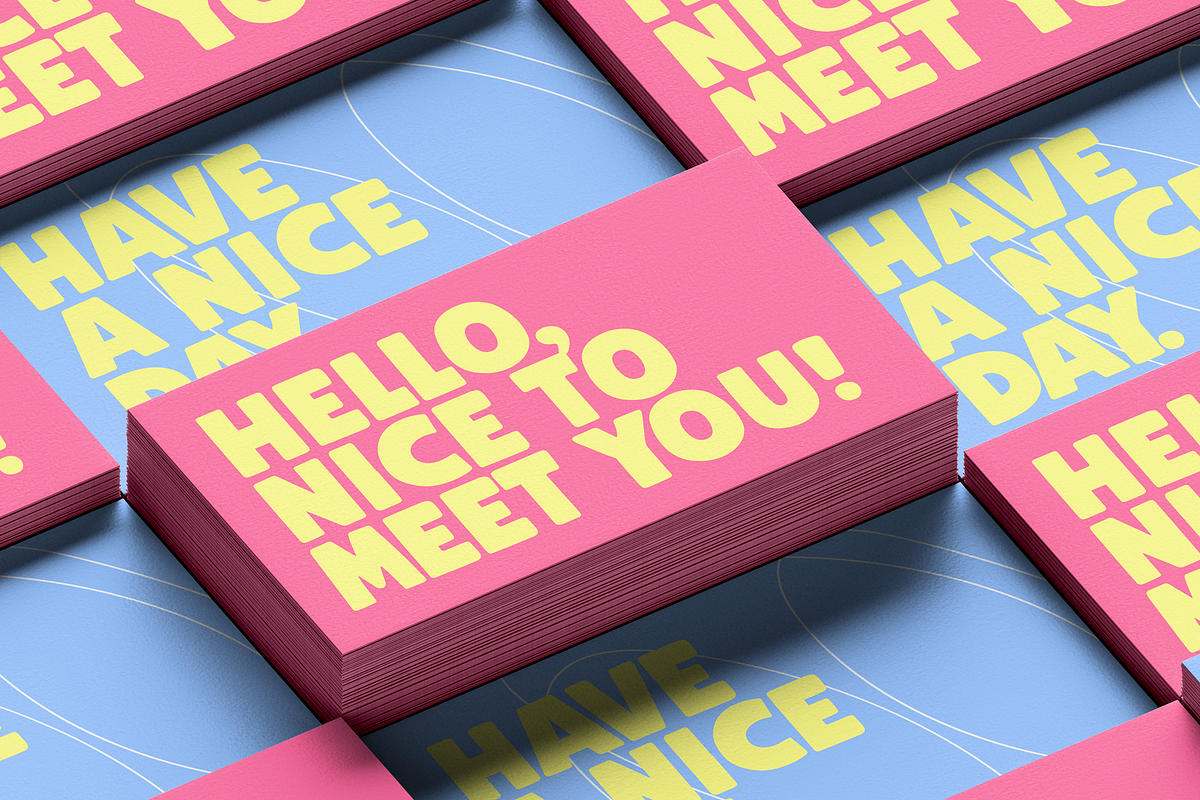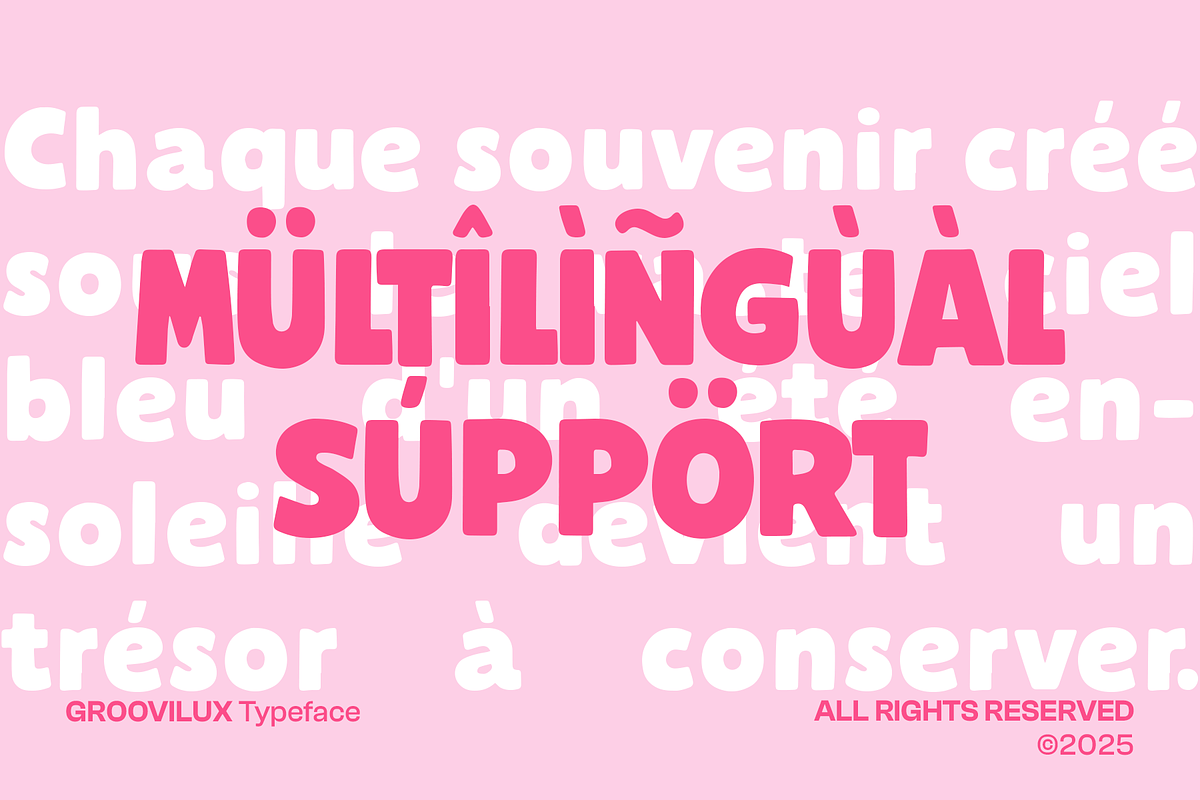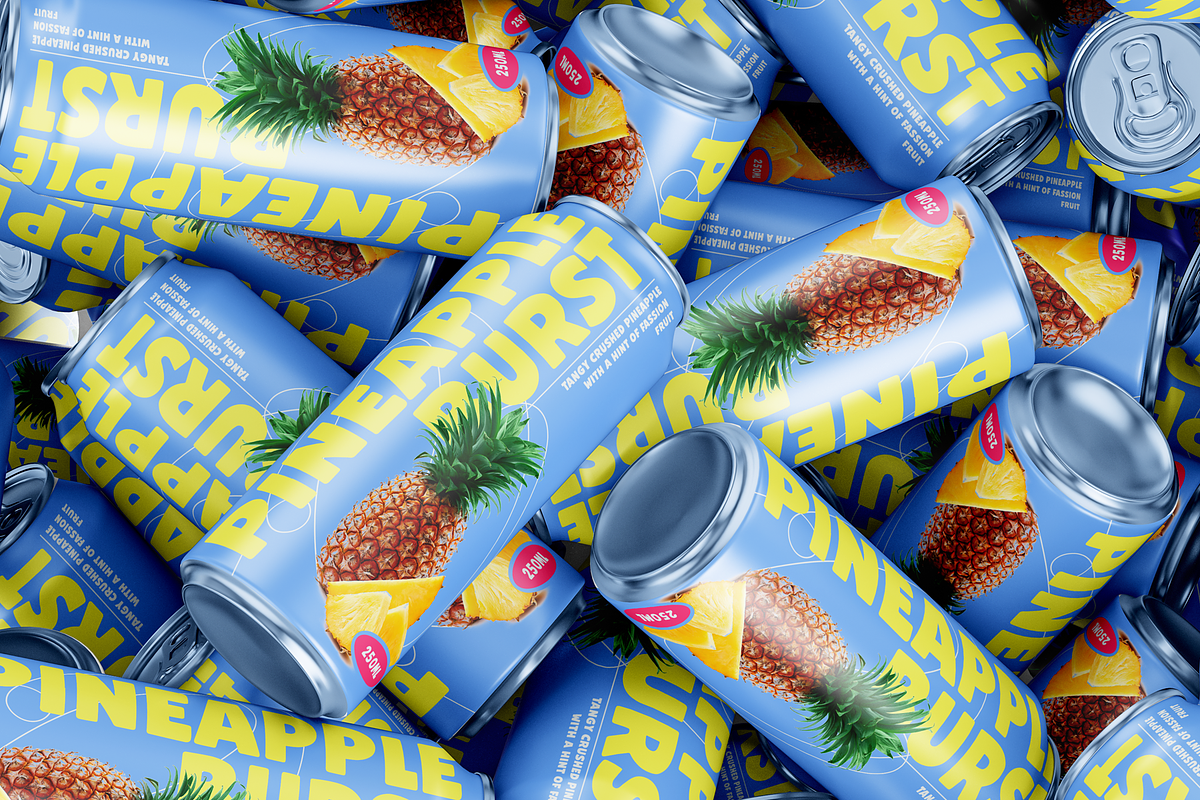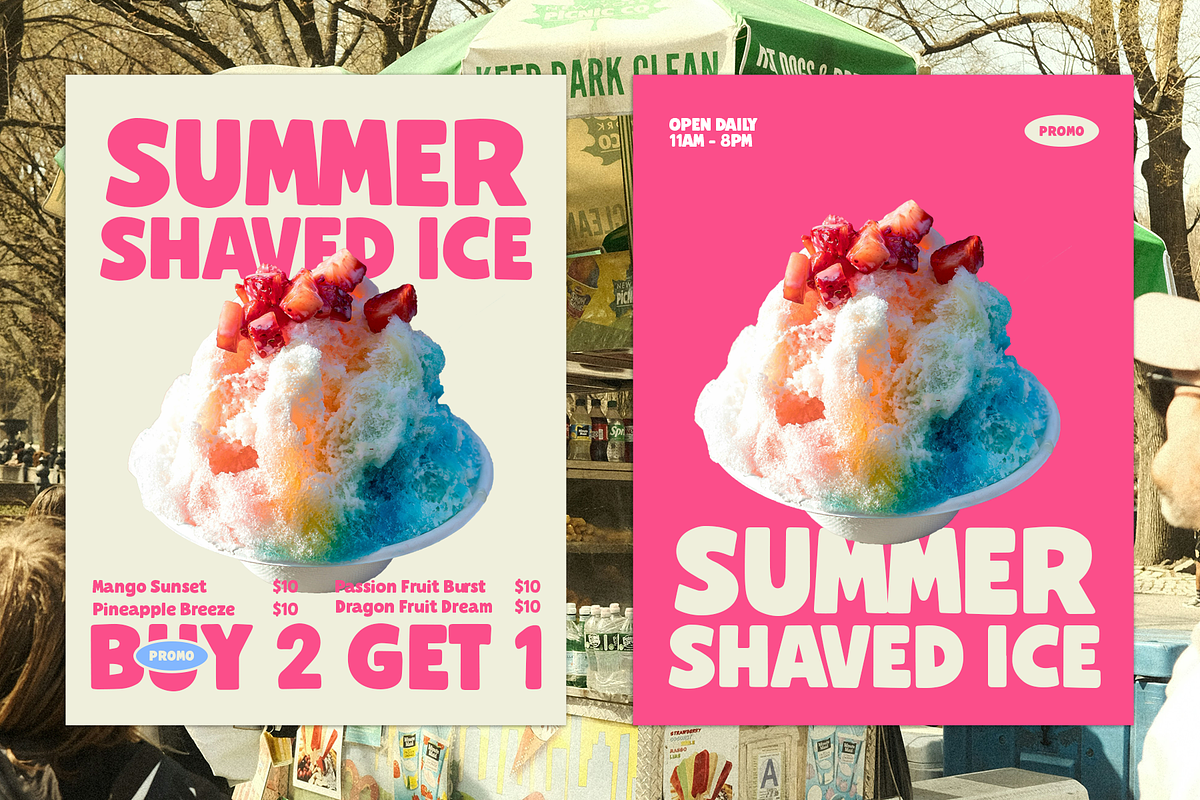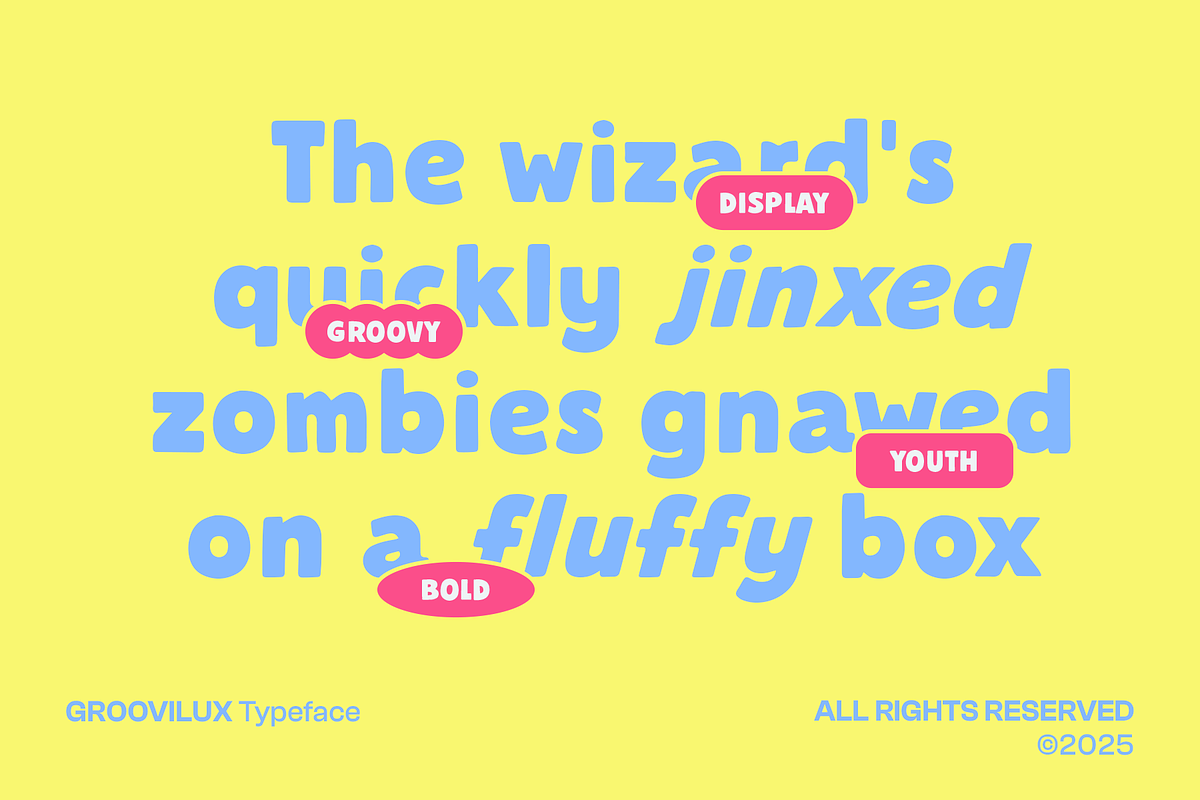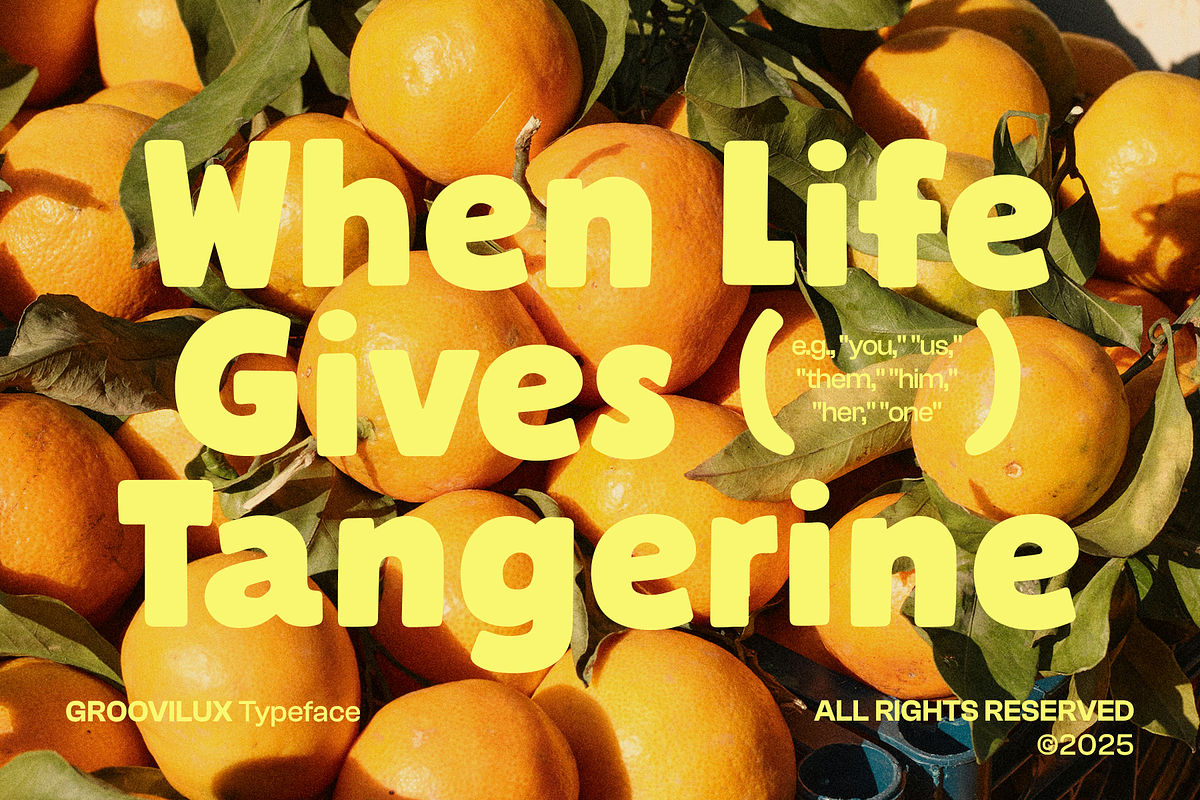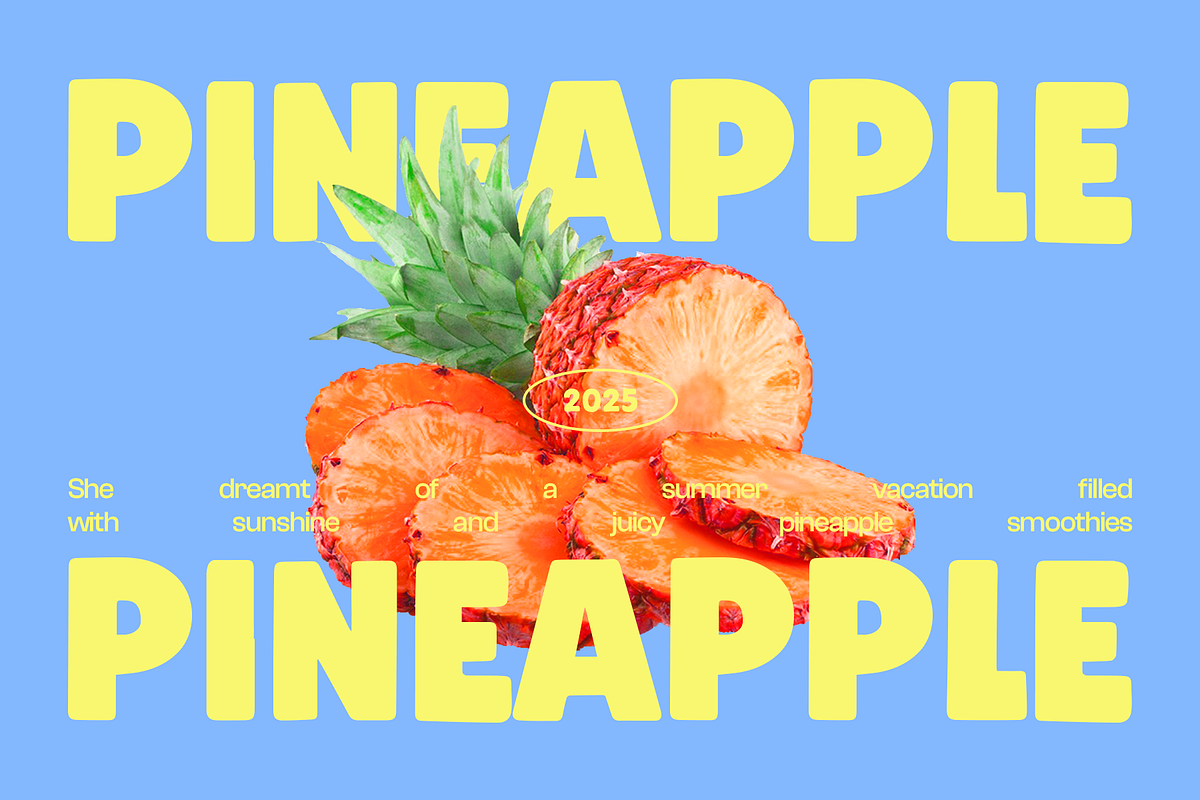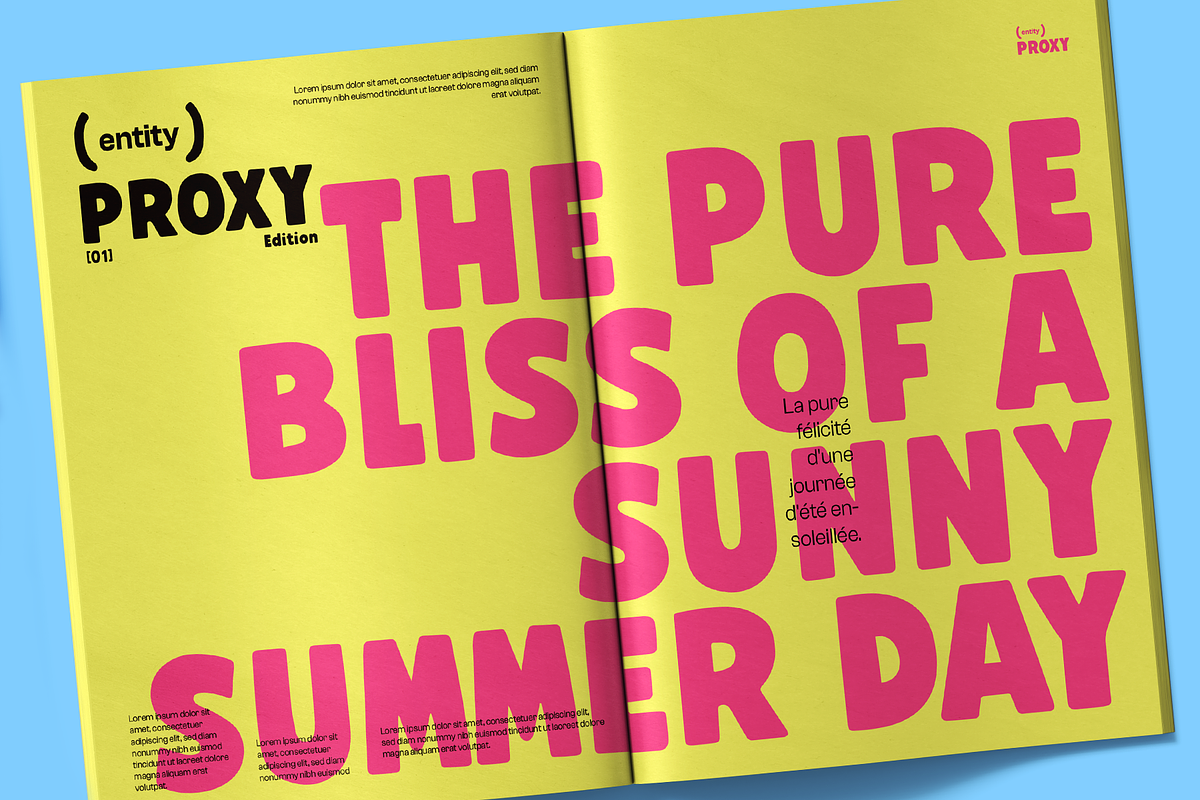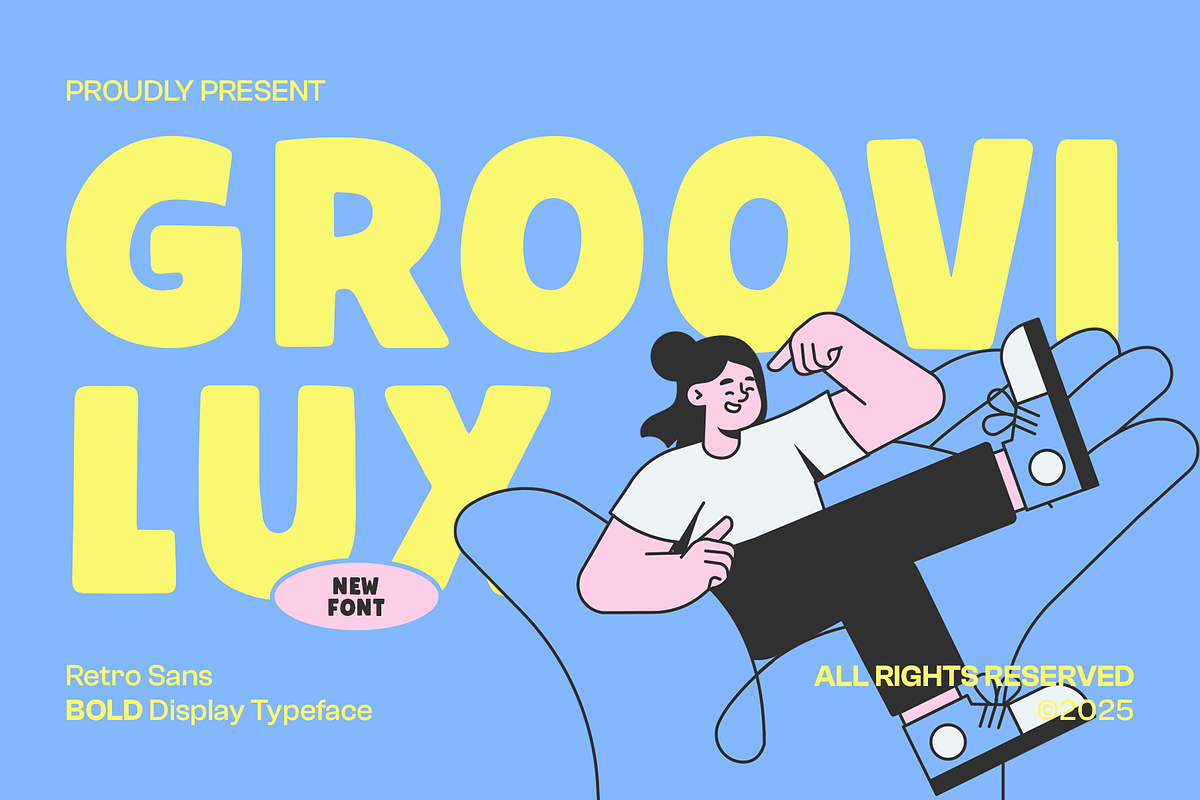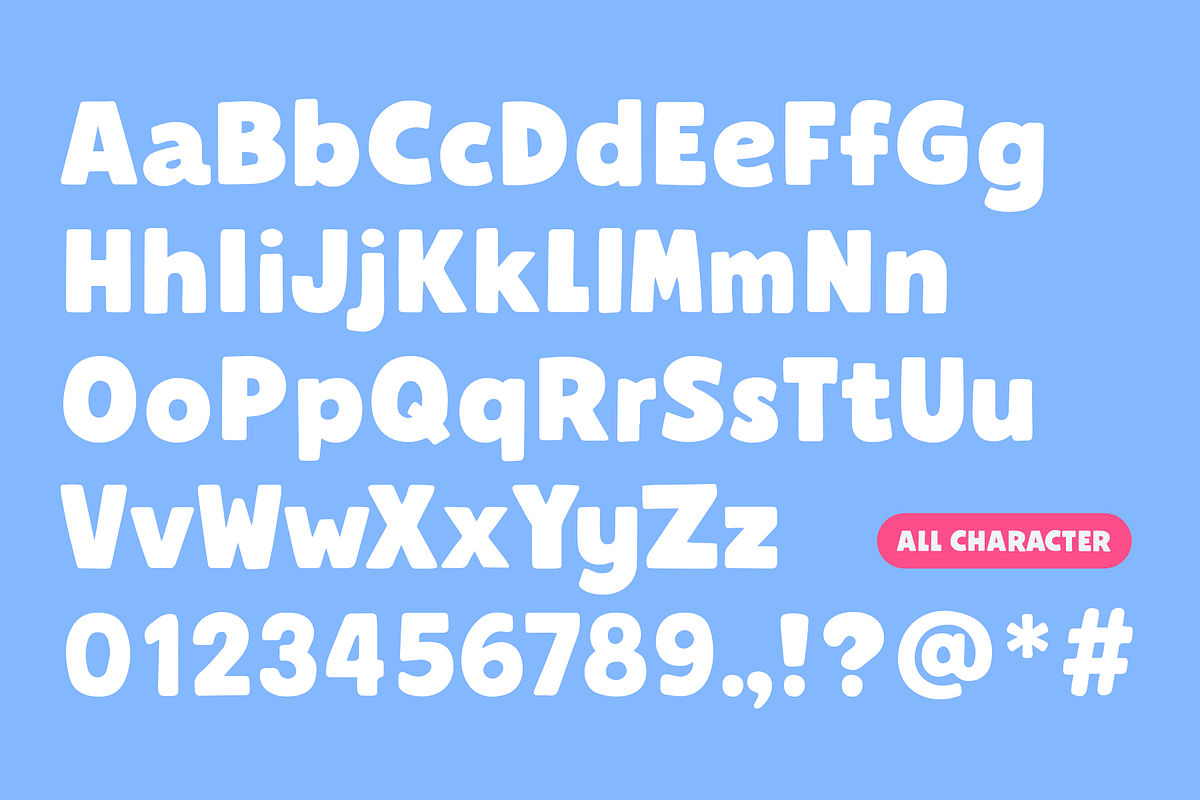
Groovilux - Retro Sans Bold Display
GROOVILUX is a bold retro sans typeface that channels the playful charm of 70s pop culture with a fresh, modern twist. Its chunky curves, soft terminals, and vibrant energy make it the perfect choice for projects that want to feel joyful, nostalgic, and full of character. Whether you're crafting funky posters, children's book covers, colorful branding, or social media graphics, GROOVILUX brings instant groove and warmth to your typography. Designed for bold statements and happy vibes, GROOVILUX thrives in big sizes and colorful palettes. A great fit for lifestyle brands, music events, retro-themed packaging, and any design that dares to smile.